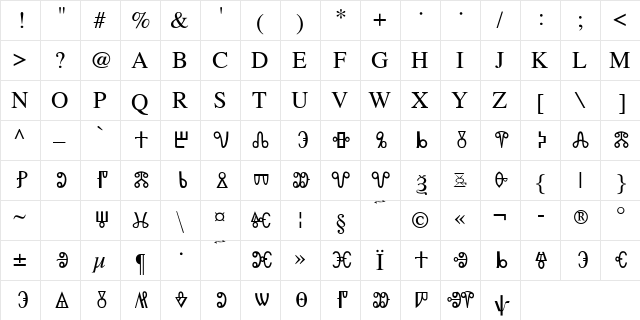
Old Moravian Glagolitic Regular
Design Context for Old Moravian Glagolitic Typeface
Old Moravian Glagolitic is a composed and adaptable typeface that performs quietly and consistently across a wide range of design contexts.